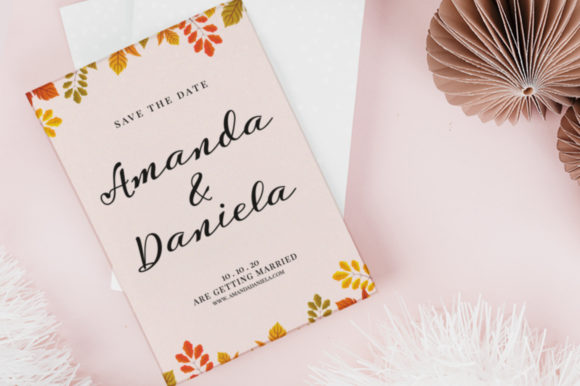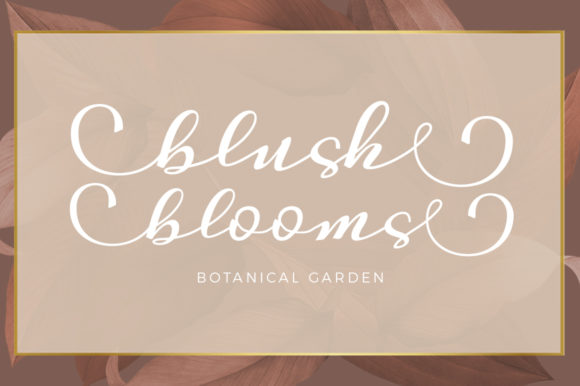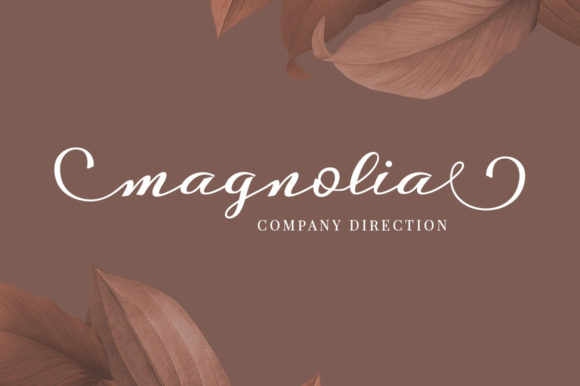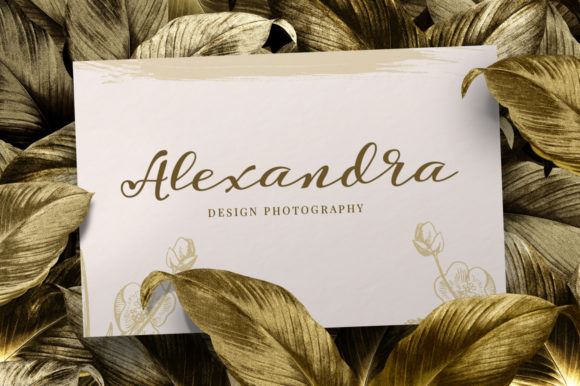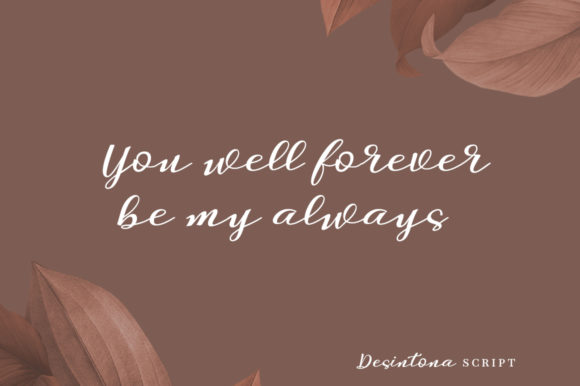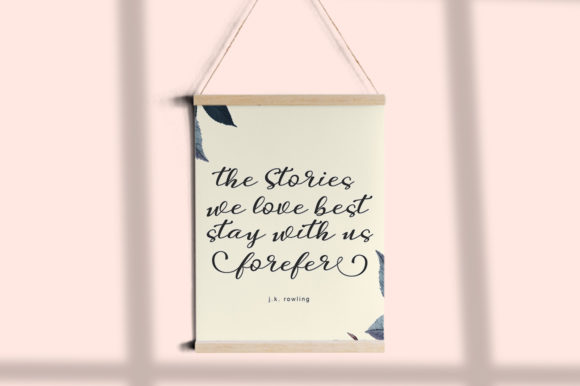
Introducing Desintona Script Font: Elevate Your Designs with a Contemporary Twist
In the world of typography, a font can make or break a design project. It’s the perfect blend of style, personality, and functionality that can transform a simple layout into a stunning visual masterpiece. If you’re on the hunt for a script font that exudes a contemporary and cool vibe, look no further than Desintona. This beautifully crafted font is designed to bring an incredibly authentic feel to your designs, making it an excellent choice for creatives and designers looking to make a statement.
The Desintona Difference: A Contemporary and Cool Script
Desintona is more than just a script font – it’s an experience. With its sleek lines, fluid curves, and harmonious balance, this font is perfect for adding a touch of sophistication and elegance to any design project. Whether you’re working on a logo, branding materials, packaging, or digital media, Desintona’s unique charm is sure to captivate your audience and leave a lasting impression.
So, what sets Desintona apart from other script fonts? Here are a few key features that make it a standout:
- Contemporary style: Desintona boasts a modern aesthetic that’s perfect for designers looking to create fresh and trendy designs.
- Authentic vibe: This font’s unique character and personality shine through in every letter, giving your designs an authentic feel that’s hard to replicate.
- Versatility: Desintona is incredibly versatile, making it suitable for a wide range of design projects, from logos and branding to packaging and digital media.
- Ease of use: With its clean and legible design, Desintona is easy to read and works beautifully in both digital and print formats.
How to Use Desintona Script Font in Your Designs
Ready to unleash the power of Desintona in your designs? Here are some creative ways to incorporate this stunning script font into your projects:
- Logo design: Create a memorable logo that stands out from the crowd with Desintona’s unique and captivating style.
- Branding materials: Use Desintona to add a touch of sophistication and elegance to your branding materials, such as business cards, letterheads, and brochures.
- Packaging design: Make your products stand out on store shelves with Desintona’s eye-catching and contemporary style.
- Digital media: Use Desintona to add a professional and modern touch to your digital media, including social media graphics, blog posts, and website headers.
Tips and Tricks for Getting the Most Out of Desintona
To help you get the most out of Desintona, here are some valuable tips and tricks:
- Experiment with font sizes: Desintona looks great in a variety of font sizes, so don’t be afraid to experiment and find the perfect size for your design.
- Pair with complementary fonts: Combine Desintona with complementary fonts to create a unique and visually appealing typography scheme.
- Play with colors: Desintona works beautifully with a range of colors, so don’t be afraid to get creative and try out different color combinations.